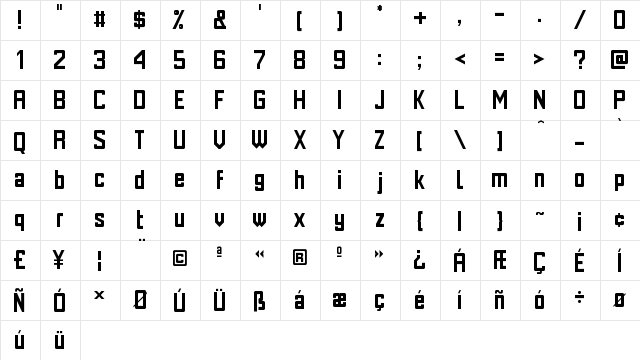
zancle eYe/FS Regular
| Designer | Antonio J. Morata |
Design Context for zancle eYe/FS Typeface
zancle eYe/FS takes a measured approach to typography — its balanced proportions and neutral character make it a reliable workhorse for both digital and print work.